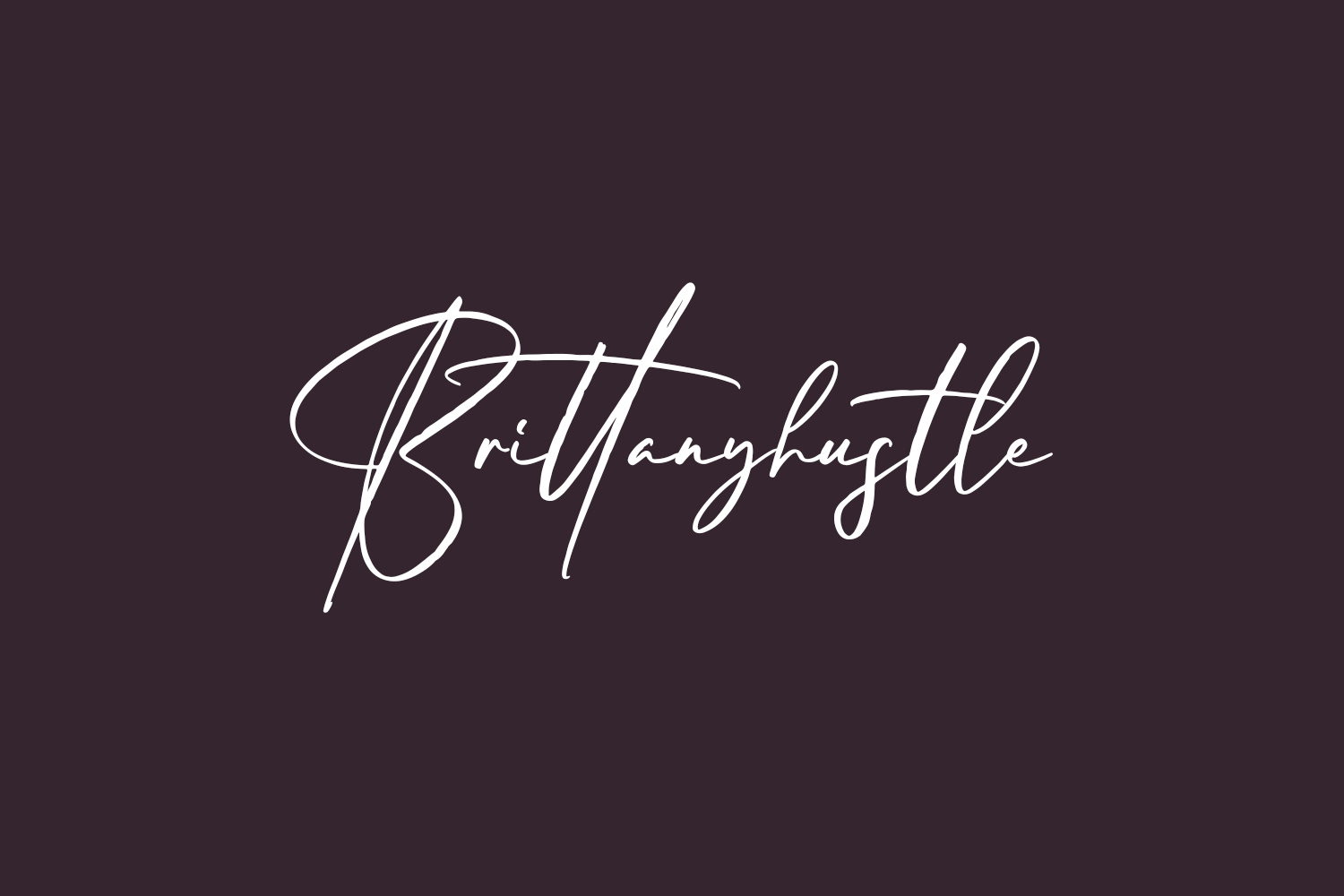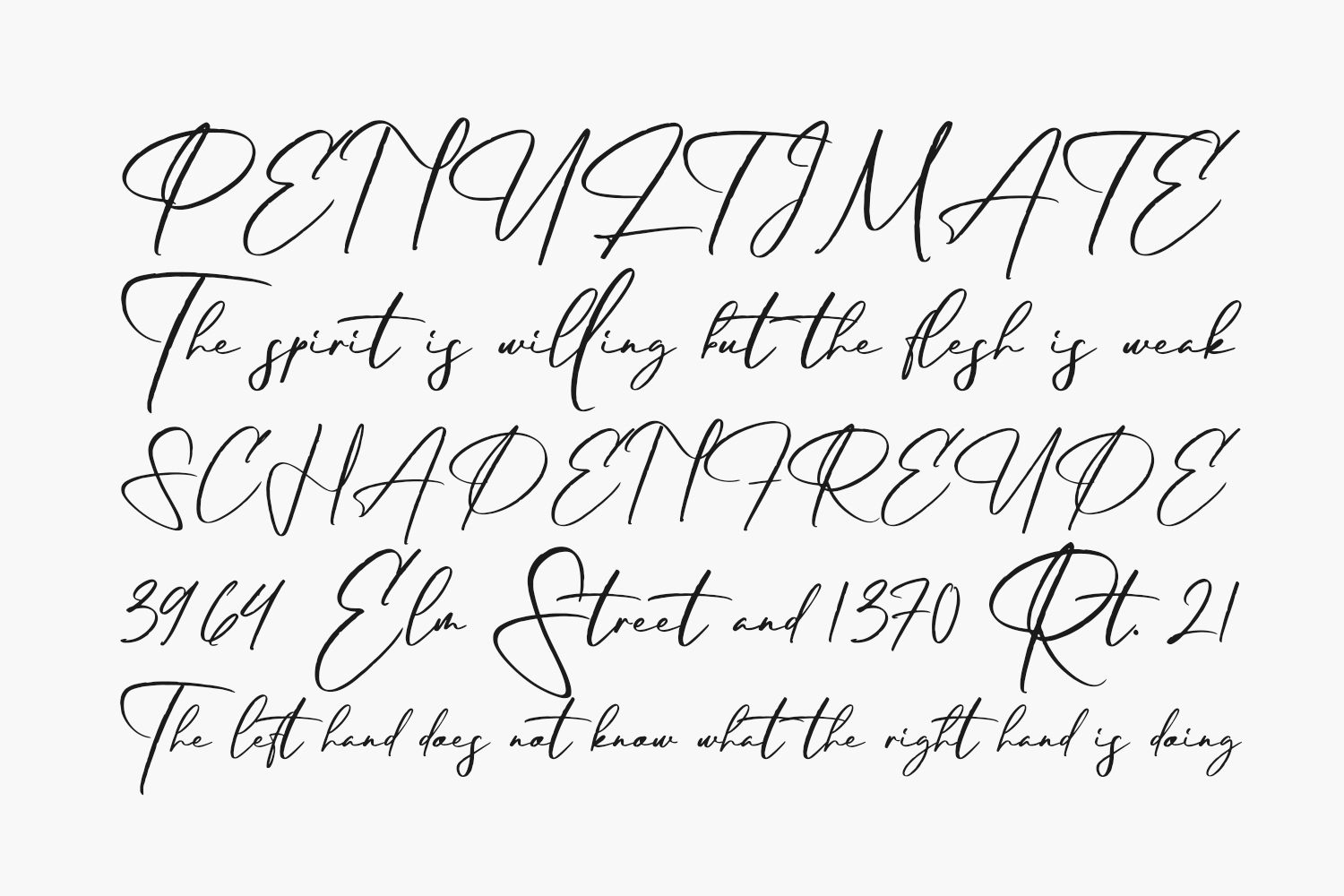
Brittanyhustle Free Font Family is a fashionable and delicate handwritten font. Dainty and stylish, this font will be ideal for writing wedding invitations, cards, or any other design that may need a romantic, personalized touch. Brittanyhustle Free Font was designed by Letterena Studios and is free for personal use only. Please purchase the full version for commercial use.
Brittanyhustle Regular The quick brown fox jumps over the lazy dog
Brittanyhustle Italic The quick brown fox jumps over the lazy dog